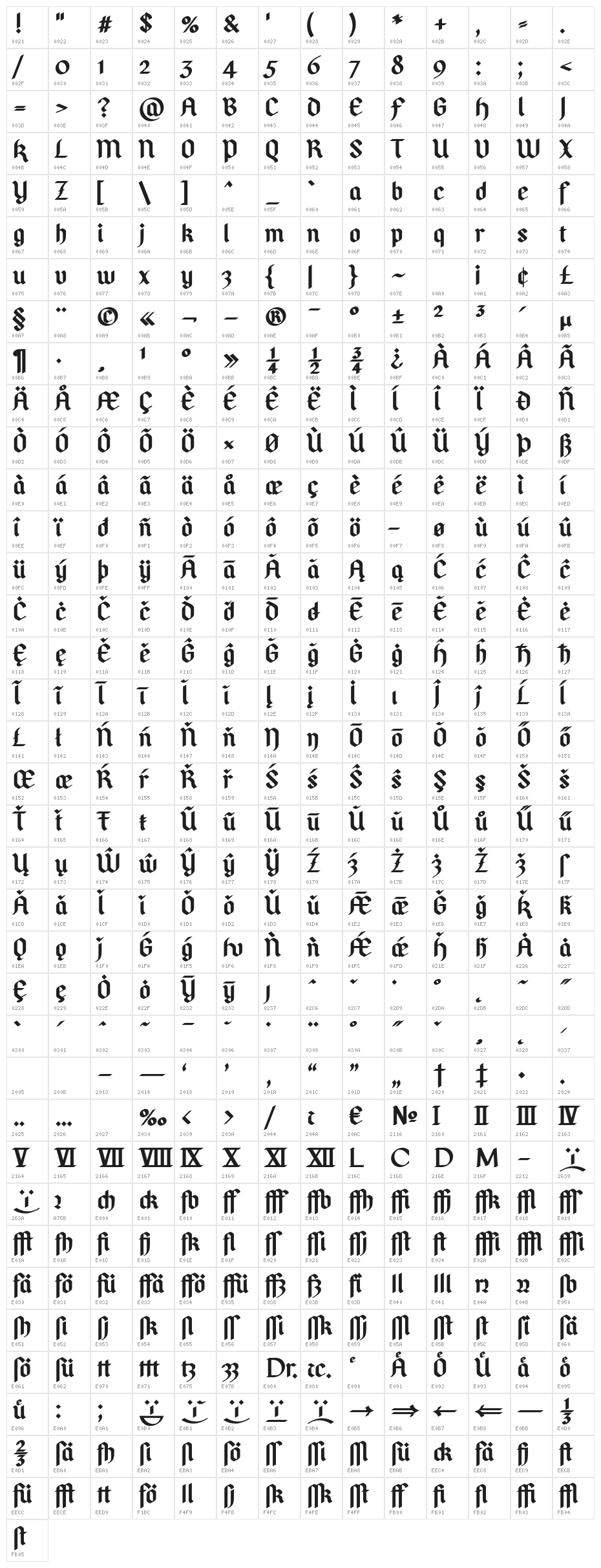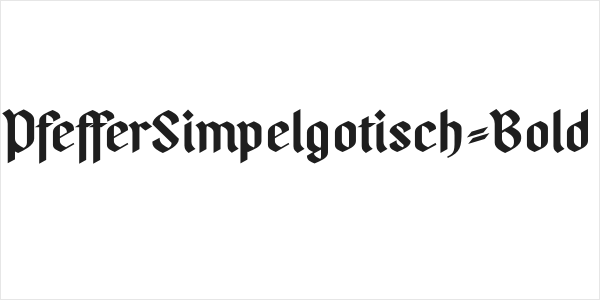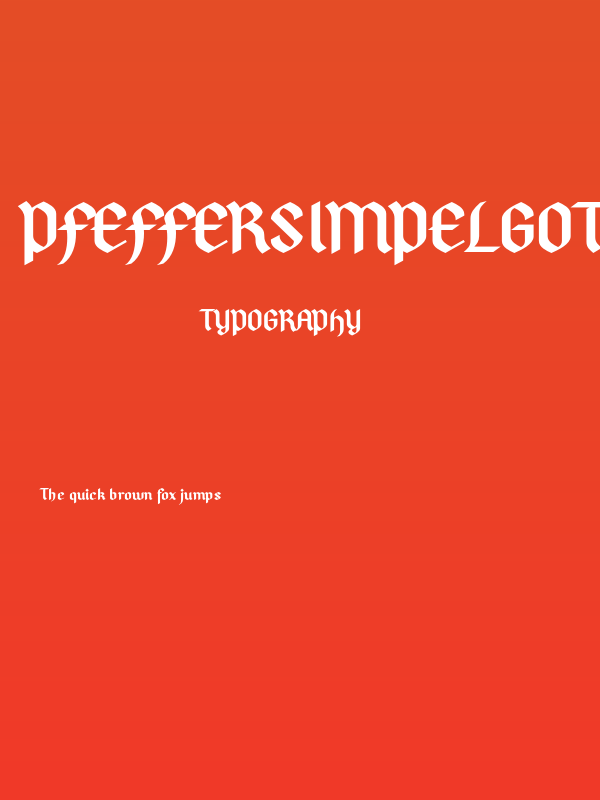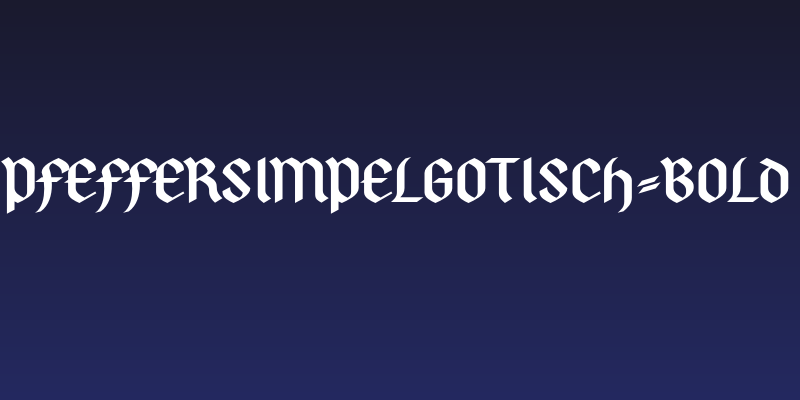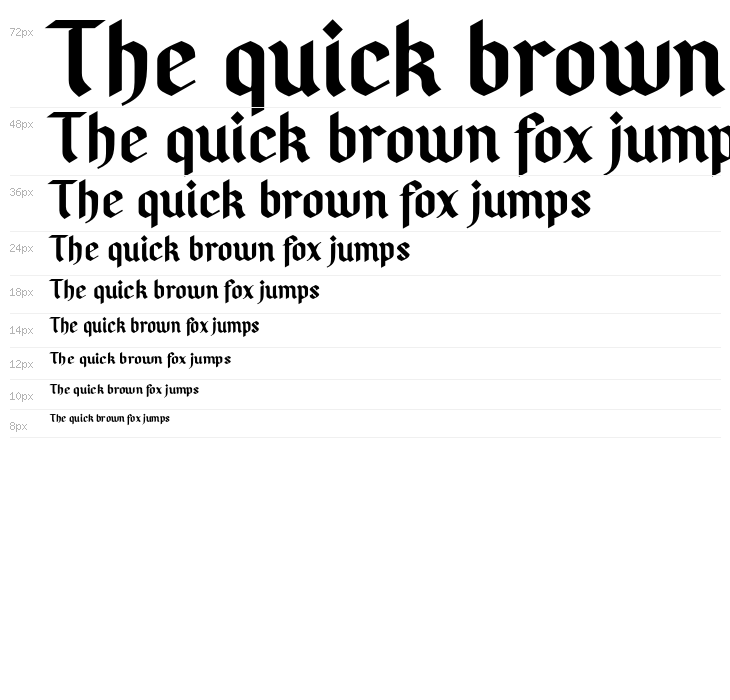
PfefferSimpelgotisch-Bold Font
PfefferSimpelgotisch-Bold Description
This font exhibits a bold and striking Blackletter style, characterized by its sharp, angular lines and dramatic strokes. The uppercase letters are tall and imposing, while the lowercase letters maintain a consistent height, creating a cohesive and uniform appearance. The numerals are equally bold, with distinctive curves and angles that complement the overall Gothic aesthetic. Special characters are designed with the same attention to detail, ensuring they integrate seamlessly with the rest of the typeface. This font's historical and traditional feel makes it ideal for projects that require a touch of elegance and formality.
| Use Case | Headlines, Logos, Decorative text |
| Proposed Projects | Ideal for certificates, invitations, historical documents, and branding that requires a traditional and formal touch. |